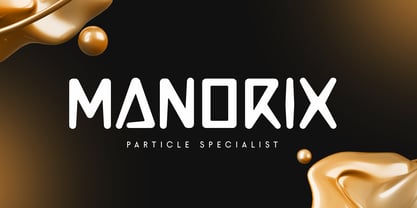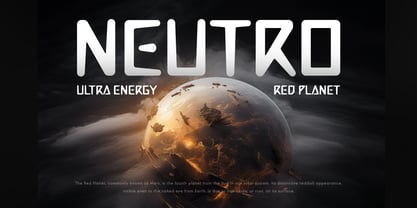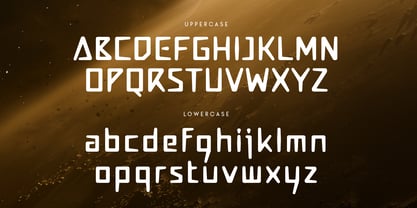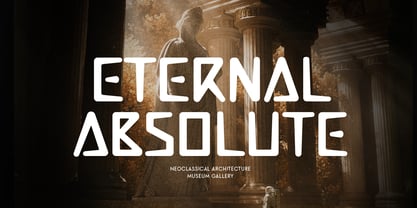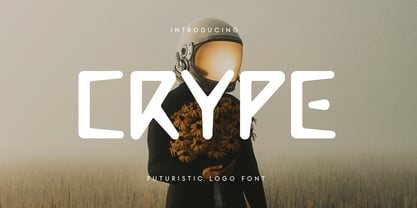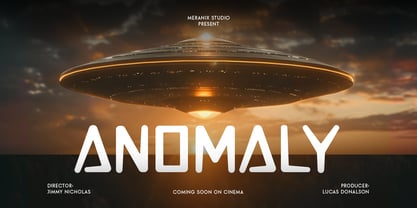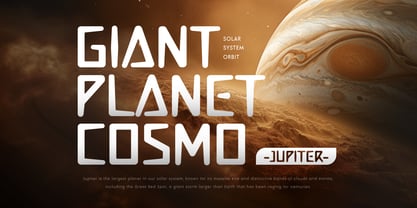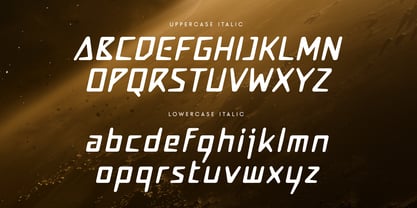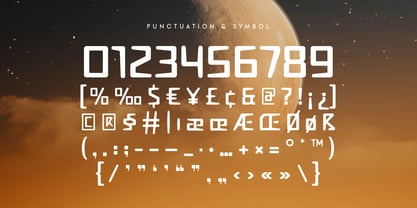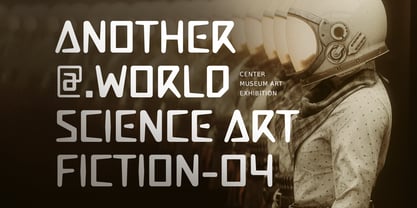
Crype
von Sensatype Studio
Die Schriftfamilie Crype wurde von Zamroni Hamzah entworfen und von Sensatype Studio veröffentlicht. Crype enthält 2 Stile und Familienpaketoptionen. Mehr über diese Familie
Crype - Futuristic Logo Font
Crype is a futuristic logo font designed to bring a sleek, tech-forward feel to your branding projects. With its sharp lines and modern aesthetic, Crype is perfect for companies in the technology, gaming, or digital industries that want to emphasize innovation and forward-thinking design. It offers a distinctive look that immediately grabs attention and communicates a cutting-edge vibe.
Ideal for tech startups, software companies, or gaming brands, Crype's futuristic style makes it stand out in a crowded market. Its geometric forms and clean design create a strong, professional look, giving your logo a sense of sophistication and modernity.
Crype also comes with a range of alternative characters and OpenType features, making it easy to customize and adapt to your specific design needs. Whether you’re designing for the web, print, or mobile, Crype’s versatility ensures your brand’s visual identity stays fresh and engaging.
Crype Futuristic Logo Font Features:
• Futuristic Characters Ready
• Punctuation, Number, and Symbol
• Uppercase and Lowercase
• Multilingual Support
• Opentype Features
Designer: Zamroni Hamzah
Foundry: Sensatype Studio